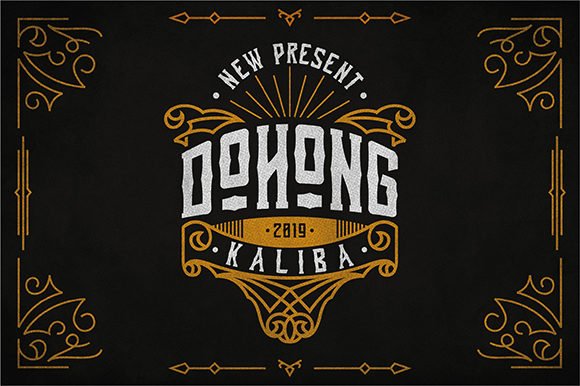
Discover the Timeless Charm of the Dohong Kaliba Font
Have you ever sat at your desk, staring at a blank canvas, waiting for inspiration to strike? It’s those moments of creative pause that can lead to some of our most innovative ideas. For designers, the quest for the perfect font is a never-ending one. It’s the difference between a project that feels complete and one that’s missing that special something.
Enter the Dohong Kaliba Font, a beautifully crafted typeface born from a hand-drawn style that exudes classic, vintage charm. Whether you’re looking to create a logo, branding materials, or simply add some personality to your next design project, the Dohong Kaliba Font is the perfect choice. Its unique and striking style is sure to make your designs stand out from the crowd.
As a valuable addition to any designer’s toolkit, the Dohong Kaliba Font offers a level of versatility and expressiveness that’s hard to find elsewhere. Its timeless appeal makes it a great choice for projects that require a touch of elegance and sophistication.
Dohong Kaliba Font Key Features
- Font Family: Dohong Kaliba is a unique, hand-drawn font family with a mix of traditional and modern elements.
- Character Set: Includes a wide range of characters, including Latin, Cyrillic, and Greek alphabets, as well as various symbols and punctuation marks.
- Size and Resolution: Available in 4 font sizes: Extra Light, Light, Regular, and Bold, with each size optimized for print and digital use at resolutions up to 300 DPI.
- Unique Characteristics: Features a distinctive, hand-drawn aesthetic with intricate details and subtle variations in letterform design, making it ideal for creative projects and branding.
Dohong Kaliba Font Review
Overall, I’m quite impressed with the Dohong Kaliba font. It has a unique and exotic vibe that can add a touch of sophistication to any design. ✨ The font’s elegant curves and intricate details make it perfect for high-end branding, luxury products, or any project that requires a premium feel.
Here are some of the things I like about this font:
- ✨ Beautiful, intricate details that make it perfect for decorative purposes
- ✨ Highly legible, even in smaller font sizes
- ✨ Supports multiple languages, making it a great choice for international projects
- ⚠️ May not be suitable for body text due to its ornate nature
- ⚠️ Can be overwhelming if used excessively, so it’s essential to use it sparingly
- ⚠️ Limited font weights and styles, which may limit its versatility
Overall, I think the Dohong Kaliba font is a great addition to any designer’s toolkit. While it may not be suitable for every project, it’s perfect for those that require a touch of elegance and sophistication. With a little creativity and restraint, this font can help take your designs to the next level.
Tips for Getting the Most Out of Dohong Kaliba Font
1. Experiment with different font sizes and styles to create visual interest.
2. Use Dohong Kaliba Font in combination with other fonts to create a unique visual effect.
3. Consider using Dohong Kaliba Font for headings and titles to create a bold and eye-catching effect.
1. Create eye-catching headings and titles for marketing materials.
2. Add a unique touch to social media graphics and posts.
3. Use Dohong Kaliba Font in logos and branding materials to create a memorable visual identity.
Alternatives to Dohong Kaliba Font
Merrweather is a classic serif font that is perfect for body text and is often used in books and magazines. It is highly legible and works well in both print and digital formats.
Comparison to Dohong Kaliba Font: Merriweather is more traditional and formal compared to Dohong Kaliba Font, which has a more modern and exotic feel. Merriweather is a better choice for formal documents and academic papers, while Dohong Kaliba Font is better suited for creative projects and designs that require a unique touch.